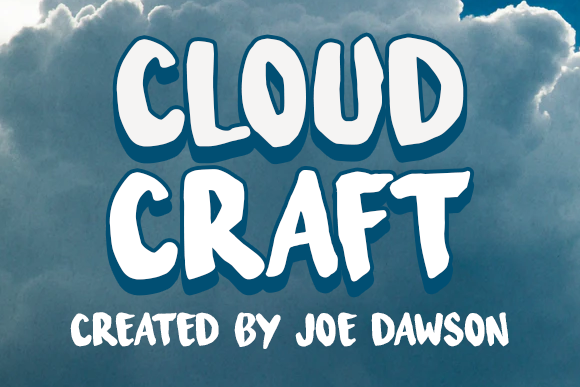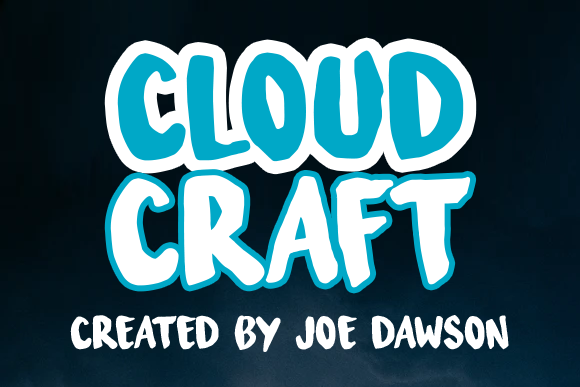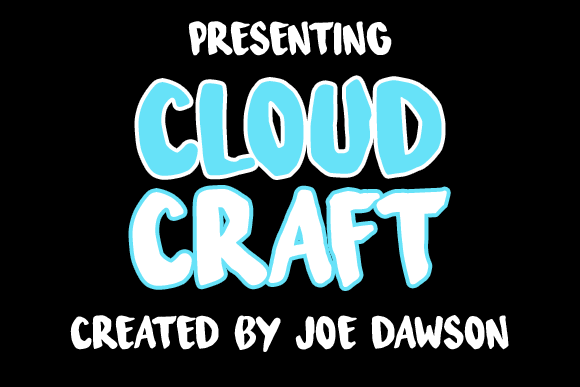
Introducing Cloud Craft Font: The Ultimate Handmade Display Font for Creative Projects
Are you a designer or crafter looking for a unique and eye-catching font to elevate your projects? Look no further than Cloud Craft Font, a stunning handmade display font that exudes personality and style. With its cool freehand style, Cloud Craft Font is perfect for creating spectacular projects that stand out from the crowd.
What is Cloud Craft Font?
Cloud Craft Font is a one-of-a-kind, handmade display font that boasts a great personality. Its freehand style gives it a personal and organic feel, making it perfect for designers and crafters who want to add a touch of whimsy to their projects. Whether you’re creating posters, t-shirts, pillows, bags, mugs, badges, headings, logos, invitations, or any other type of design, Cloud Craft Font is the perfect choice.
Key Features of Cloud Craft Font
- Unique Handmade Style: Cloud Craft Font features a unique handmade style that sets it apart from other fonts. Its freehand curves and lines give it a personal and organic feel.
- Great Personality: Cloud Craft Font has a great personality that shines through in every design. Its playful and whimsical style makes it perfect for projects that require a touch of fun and creativity.
- High Versatility: Cloud Craft Font is incredibly versatile and can be used for a wide range of projects, from posters and t-shirts to logos and invitations.
Uses for Cloud Craft Font
Cloud Craft Font is perfect for a wide range of projects, including:
- Posters: Create eye-catching posters for events, promotions, or advertising campaigns.
- T-Shirts: Design unique and stylish t-shirts for fashion brands, events, or personal use.
- Pillows: Add a touch of personality to home decor with custom pillows featuring Cloud Craft Font.
- Bags: Design stylish and functional bags for fashion brands, events, or personal use.
- Mugs: Create personalized mugs for gifts, events, or everyday use.
- Badges: Design custom badges for events, promotions, or branding campaigns.
- Headings: Use Cloud Craft Font to create stunning headings for websites, blogs, or marketing materials.
- Logos: Create unique and memorable logos for businesses, events, or personal brands.
- Invitations: Design beautiful and eye-catching invitations for events, parties, or special occasions.
Why Choose Cloud Craft Font?
There are many reasons why Cloud Craft Font stands out from other fonts. Here are just a few:
- Unique Style: Cloud Craft Font features a unique handmade style that sets it apart from other fonts.
- High Quality: Cloud Craft Font is a high-quality font that is designed to produce stunning results.
- Versatile: Cloud Craft Font is incredibly versatile and can be used for a wide range of projects.
Cloud Craft Font is a unique and stunning handmade display font that is perfect for designers and crafters who want to add a touch of personality to their projects. With its cool freehand style and high versatility, Cloud Craft Font is the perfect choice for a wide range of projects, from posters and t-shirts to logos and invitations. So why wait? Download Cloud Craft Font today and start creating spectacular projects that stand out from the crowd!